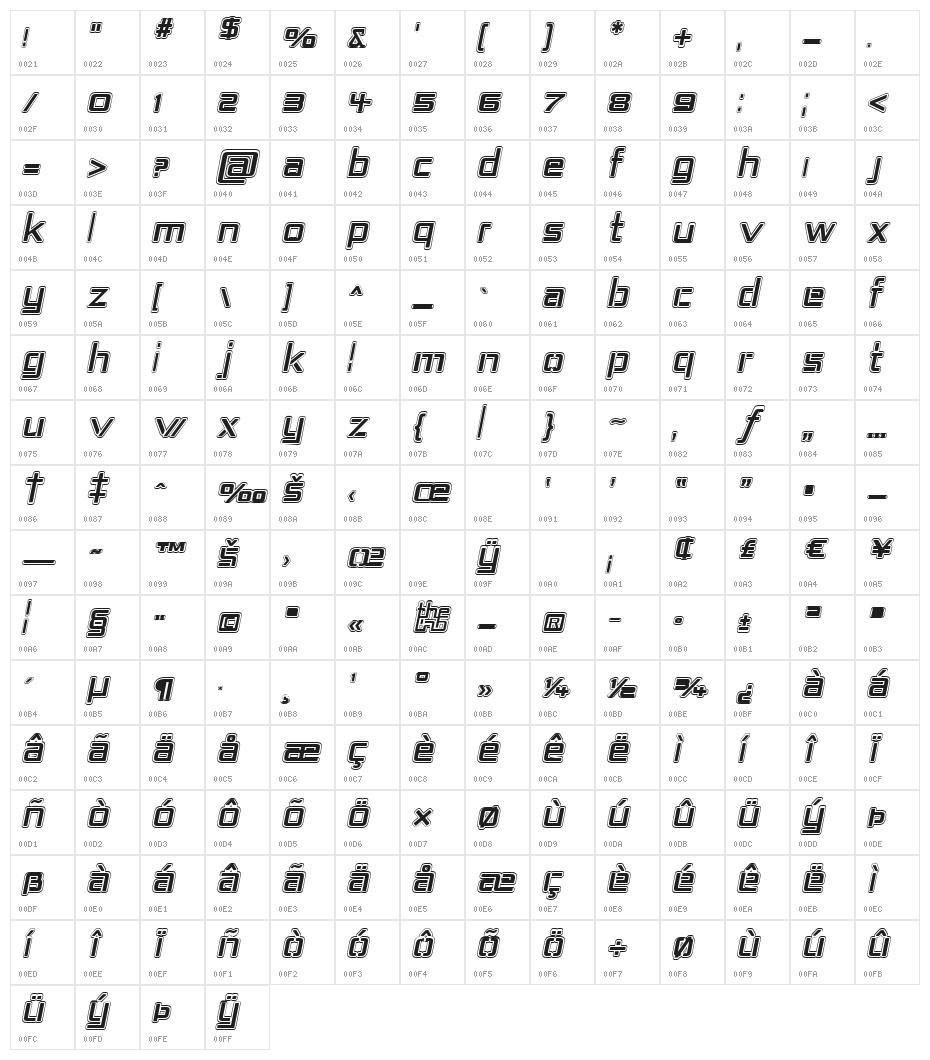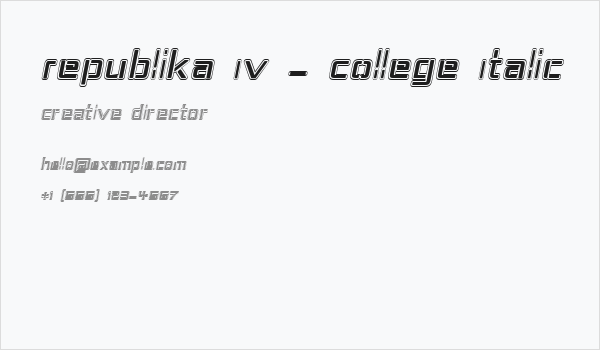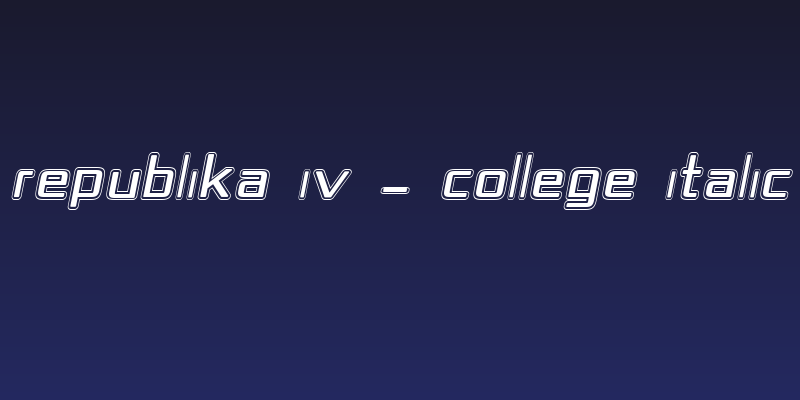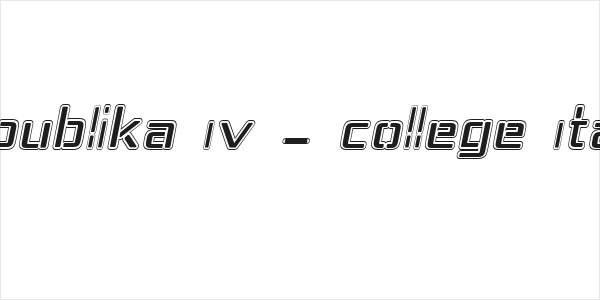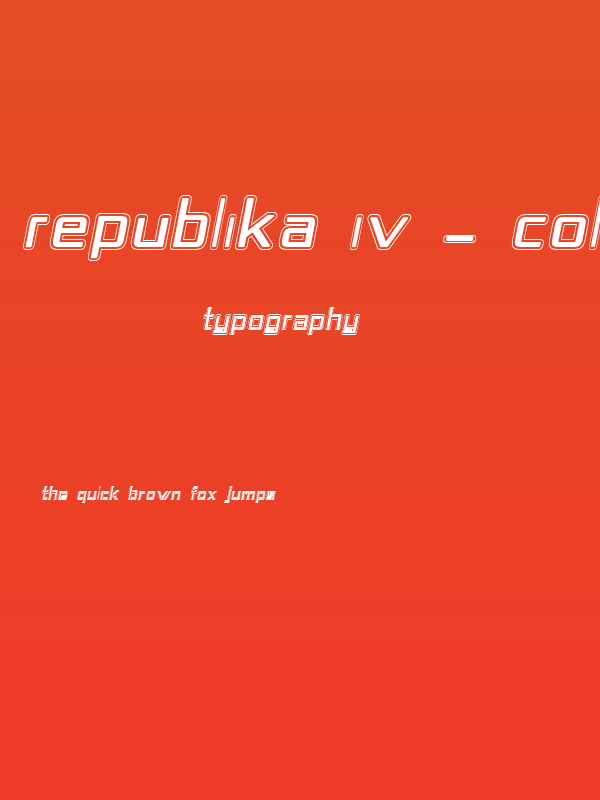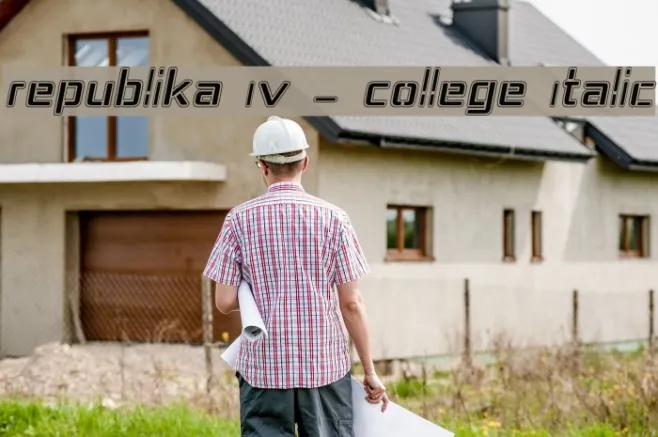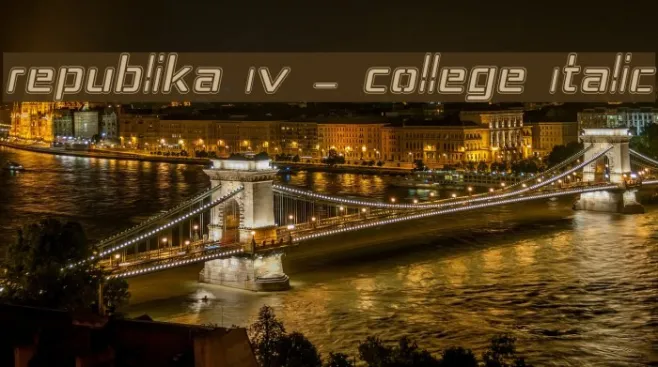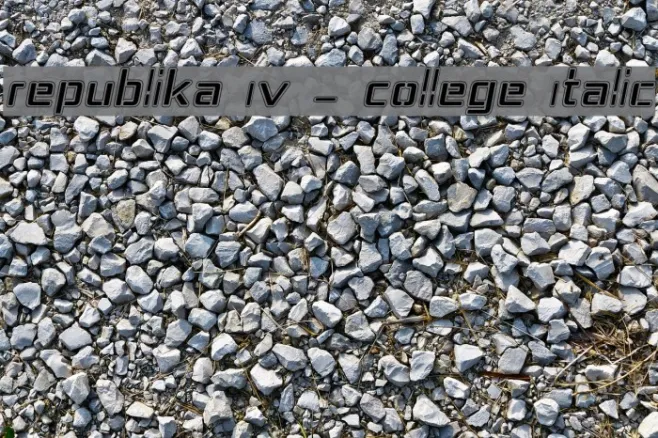
Republika IV - College Italic Font
Republika IV - College Italic Description
This font features a modern and dynamic design with a distinct italic slant, giving it a sense of motion and energy. The characters are outlined with a bold, double-line style that adds depth and dimension, making it stand out in any design. The uppercase and lowercase letters maintain a consistent style, with rounded edges and a geometric structure that enhances readability. The numerals and special characters follow the same design principles, ensuring a cohesive look across all text elements. This font's unique style makes it suitable for projects that require a contemporary and eye-catching appearance.
| Proposed Projects | Ideal for sports branding, dynamic posters, modern advertisements, and digital media. |